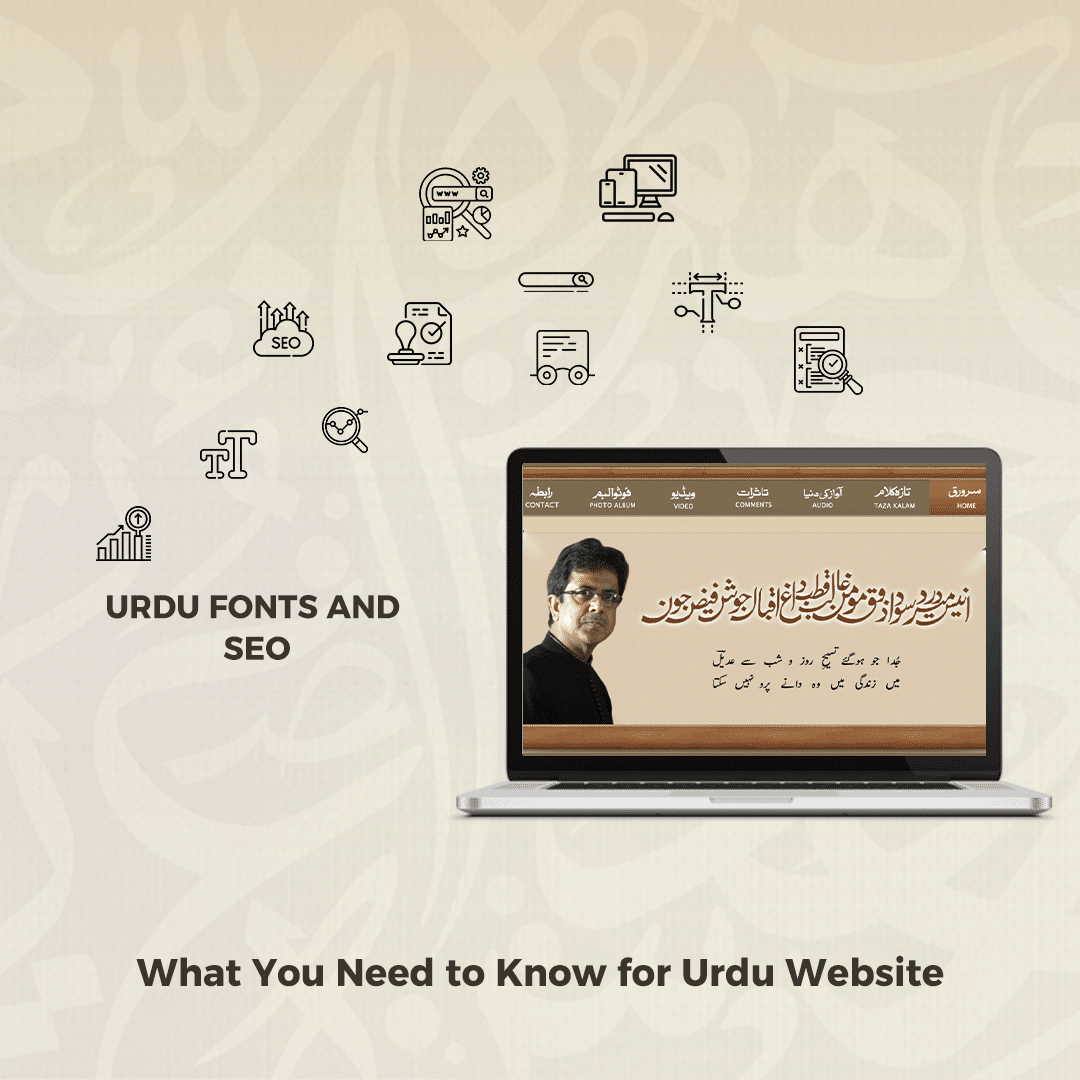
Urdu websites mostly attract those specific audience that reads and understands the Urdu script well. For this purpose, fonts are important too, because they:
They Enhance Readability: If you are using the correct Urdu font, it will ensure that your text is clear and easy to read for the visitors.
They Create Visual Appeal: A well selected font adds the aesthetics to your website. It will make your website look more professional.
Urdu Fonts Give Cultural Value: When you are using traditional or Nastaleeq fonts, it will give an authentic feel to your website. Urdu fonts resonate well with the Urdu readers.
But, while selecting an Urdu font, it is essential to consider how it interacts with the search engines.
SEO will help your website to rank higher on search engines like Google. Urdu fonts have great influence on SEO. Let’s look into how:
Here are some popular Urdu fonts you can use. When choosing a font, please prioritize readability and compatibility with the digital platforms.
| Sr. | Font Name | Description |
| 1 | Jameel Noori Nastaleeq | A classic Urdu font for traditional-looking websites. |
| 2 | Google Noto Nastaleeq | A lightweight and SEO-friendly option for you. |
| 3 | Urdu Typesetting | Simple and easy to read for various devices. |
| 4 | Alvi Nastaleeq | Great for artistic content but slightly heavy for websites. |
Wondering how to perform this task? Here are some of the steps to ensure your Urdu fonts are contributing positively to your website’s SEO.
While Urdu fonts are beautiful, there are some challenges too. Let’s have a look into them.
Font Rendering Issues: Some fonts may not display properly on all devices.
Limited SEO Tools for Urdu: As compared to English, fewer tools support Urdu SEO optimization.
Font Size and Alignment: Maintaining proper alignment in complex fonts like Nastaleeq can be tricky.
By keeping in mind these issues with the tips we discussed earlier, you can create a SEO-friendly Urdu website.
Choosing and optimizing Urdu fonts is more than just a design choice. It is a strategy that improves your website’s SEO. Always use Unicode fonts and ensure your website is mobile-friendly. Try to focus on fast loading speeds to rank higher on search engines. By combining beautiful fonts with strong SEO practices, you cn create a website that attracts readers and ranks well. Keep in mind that your Urdu content deserves to shine online. The right Urdu font choice is the major step for this purpose.